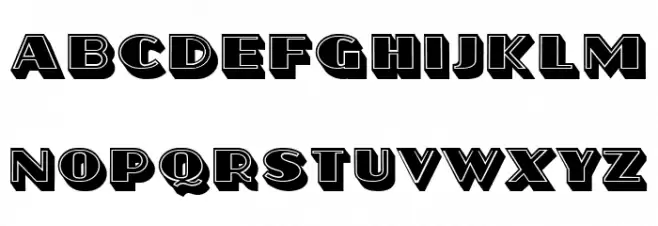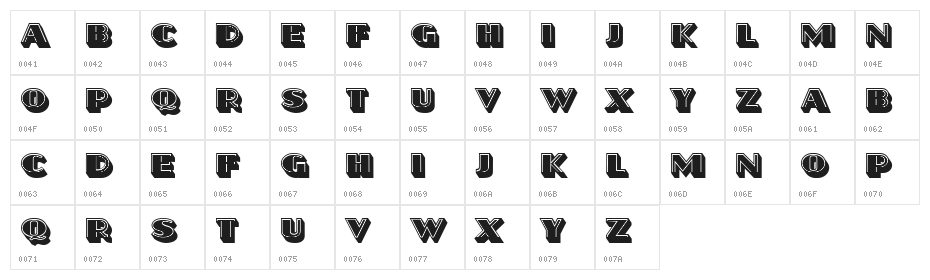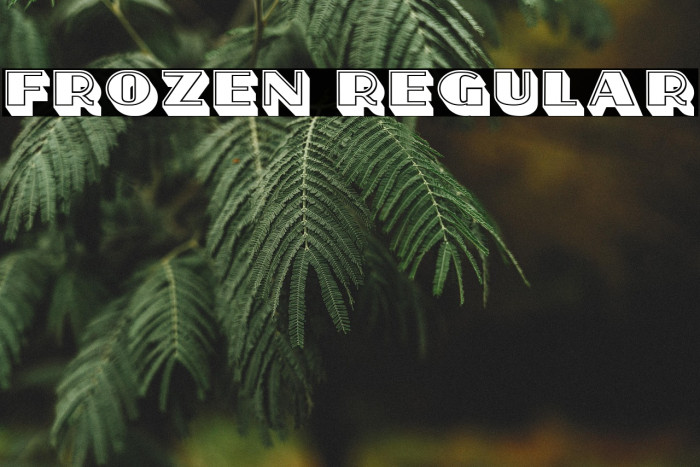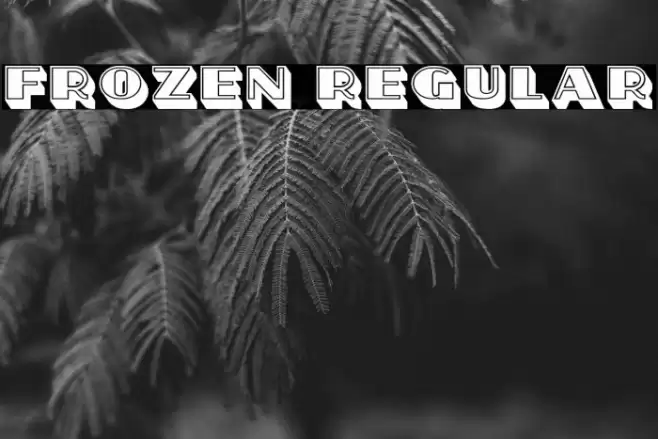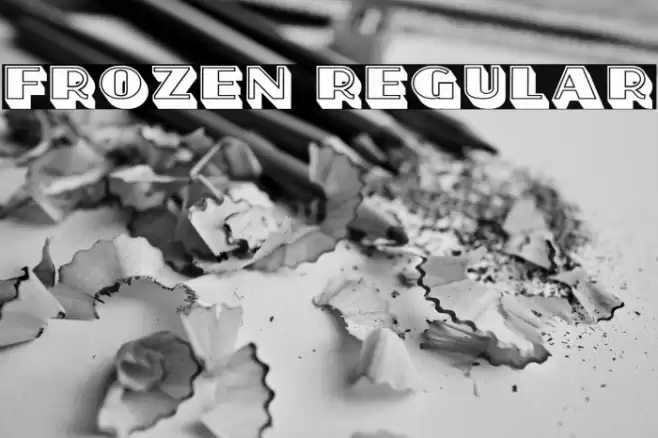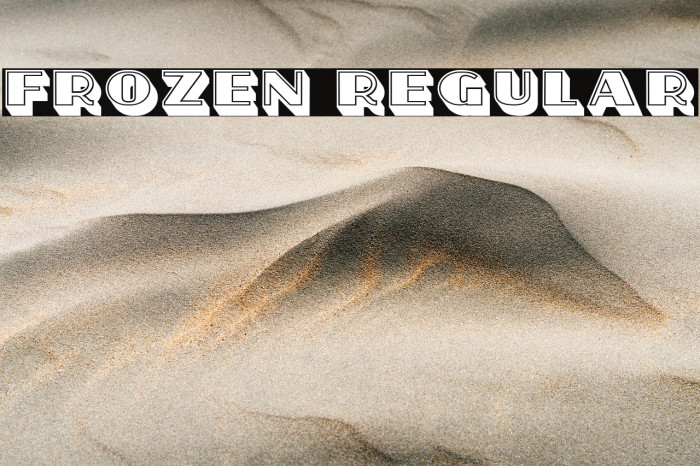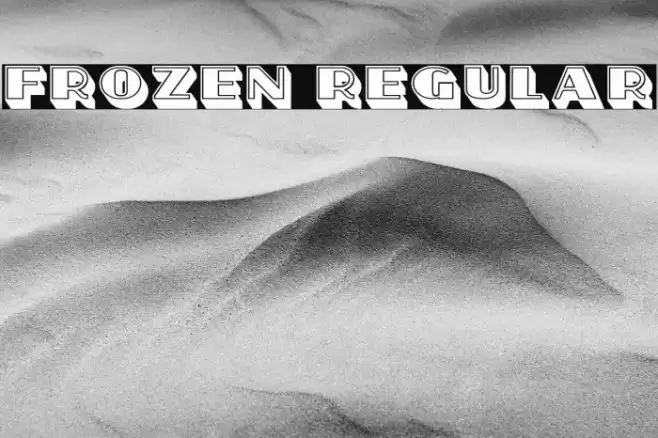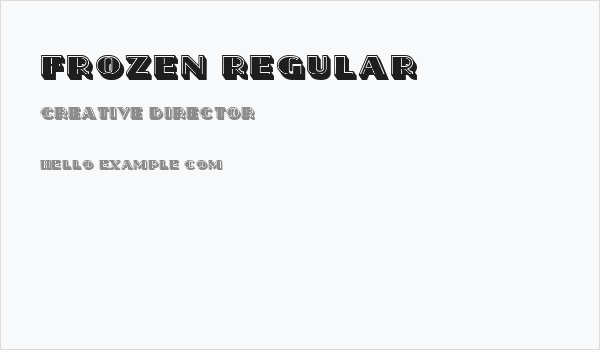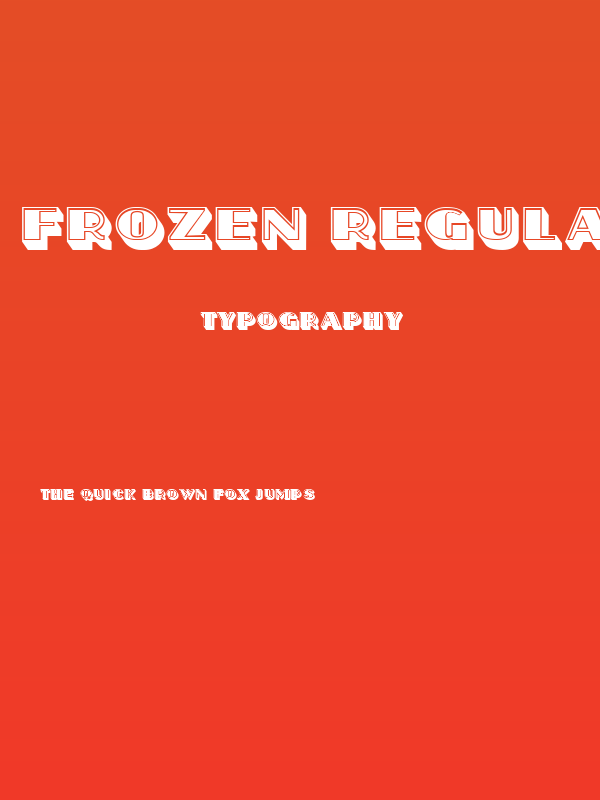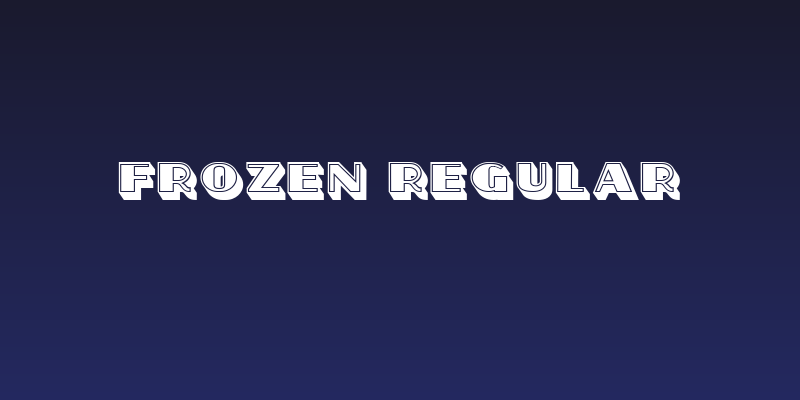
Frozen Regular Font
Frozen Regular Description
This font features a bold, three-dimensional appearance with a strong shadow effect that gives it a striking and impactful look. The uppercase letters are designed with a blocky, geometric style that emphasizes their boldness and presence. The shadowing adds depth, making the letters stand out as if they are popping off the page. The font's design is clean and modern, yet it retains a playful and dynamic feel due to the shadowing. This makes it suitable for projects that require a bold statement or a fun, engaging look. The characters are evenly spaced, ensuring readability while maintaining a cohesive visual impact.
| Proposed Projects | Ideal for posters, headlines, logos, and any design needing a bold, eye-catching font. |